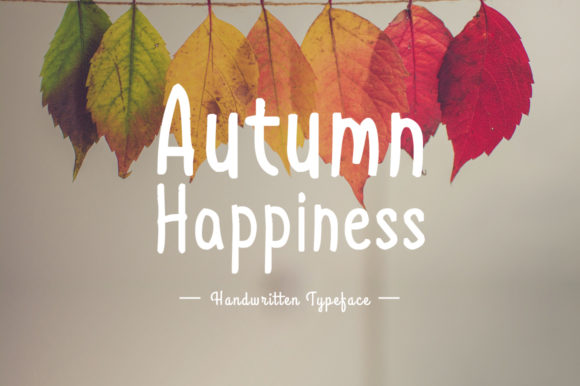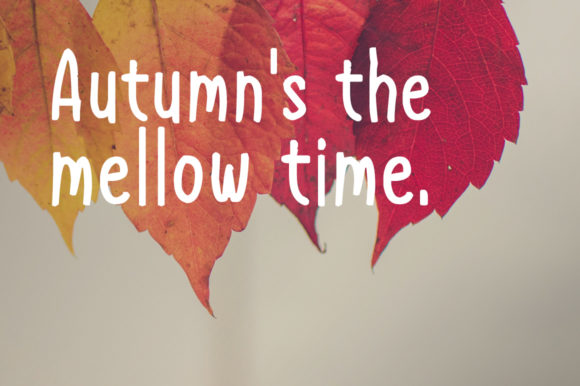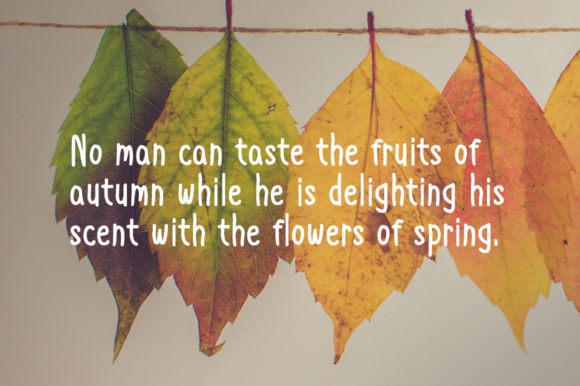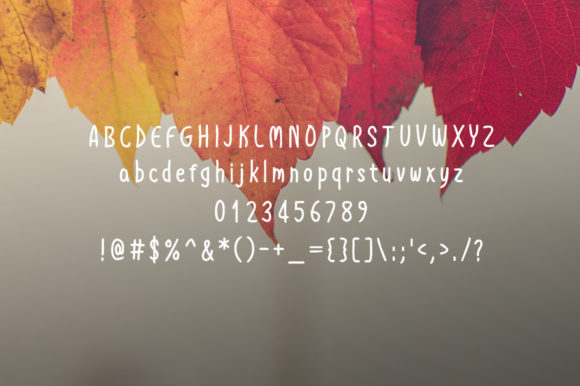
Autumn Happiness Font
About Autumn Happiness Font
Autumn Happiness is a sweet and autumnal font that celebrates all things fall. Perfect for any September, October or November craft!